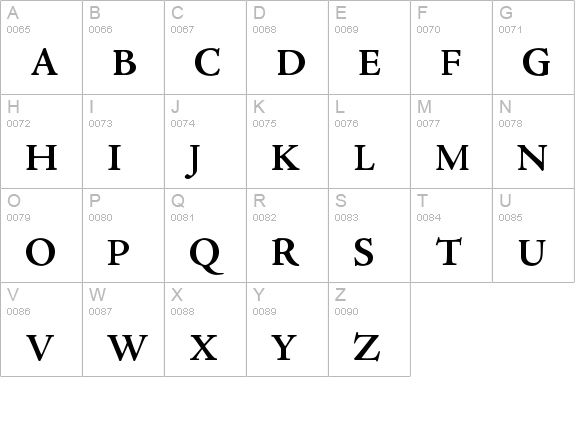
Adobe Jenson Pro Bold Font Details
Adobe Jenson Pro Bold is a strong, high-contrast variant in the Adobe typeface family \xE2\x80\x94 well suited to headlines, attention-grabbing titles, and strong calls-to-action.
Adobe Jenson Pro Bold is a classic and elegant serif font that exudes sophistication and professionalism. With its bold weight, it commands attention and makes a strong visual impact in any design project. The robust serifs and graceful curves of this typeface give it a timeless appeal that is perfect for both print and digital applications. What makes Adobe Jenson Pro Bold even more appealing is that it is available for free download at FontsMarket.com. This means that you can effortlessly access this high-quality font and use it in your projects without any cost involved. Whether you're designing a poster, brochure, website, or any other creative endeavor, Adobe Jenson Pro Bold will elevate your typography and lend a touch of refined beauty to your work. Unlock the versatility and charm of this font today by downloading it for free at FontsMarket.com.